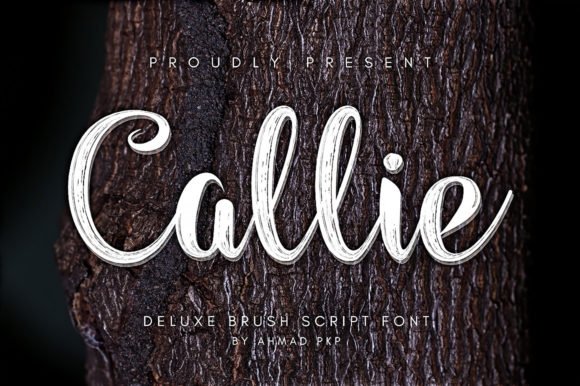
Introduction to Callie Font
Callie is a simple, unique, and easy-to-apply font.
You can add this elegant font to wedding invitations, business cards, greeting cards, posters, fashion, social media posts, wall art, and many more that require high-quality fonts, the graphics in this font from characters to kerning are perfect for use in all your work This font is PUA encoded which means you can access all of the amazing glyphs and ligatures with ease.
Key Features of Callie Font